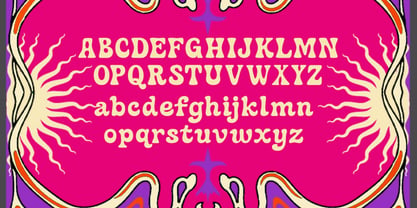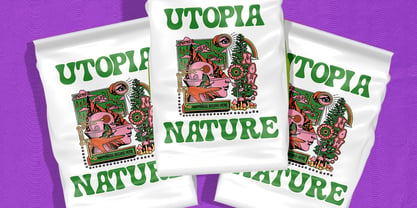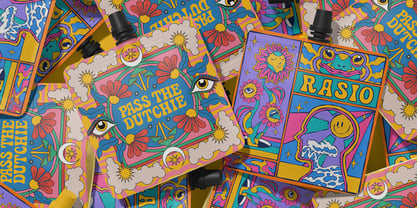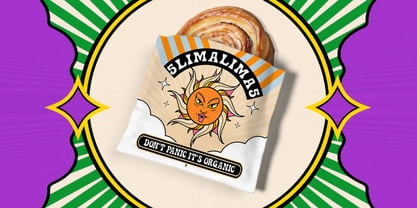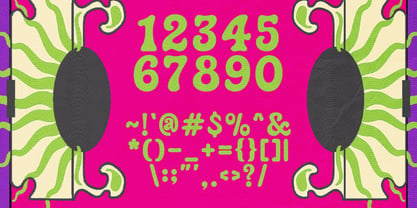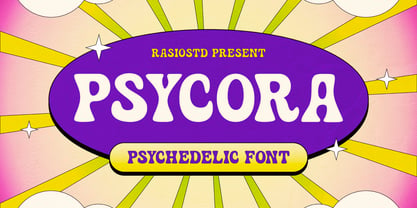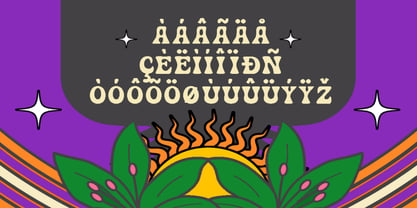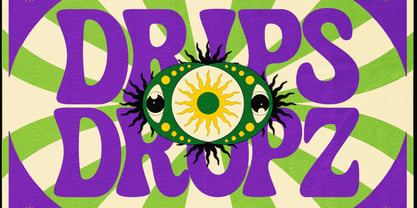
Psycora
von Rasio Studio
Die Schriftfamilie Psycora wurde von Fajar Indra entworfen und von Rasio Studio veröffentlicht. Psycora enthält 1 Stile. Mehr über diese Familie
Psycora is a bold psychedelic display typeface inspired by 70s retro posters, groovy music culture, and trippy hand-drawn lettering. It features chunky curves, wavy terminals, and playful organic shapes that create a hypnotic, flowing rhythm across every word. Relevance and Use Cases is perfect for music festival posters, retro branding, album covers, merch design, streetwear graphics, packaging, sticker art, social media visuals, event flyers, and any creative project that needs bold personality, nostalgic energy, and eye-catching typography.